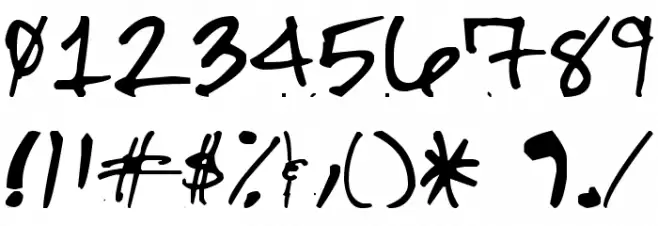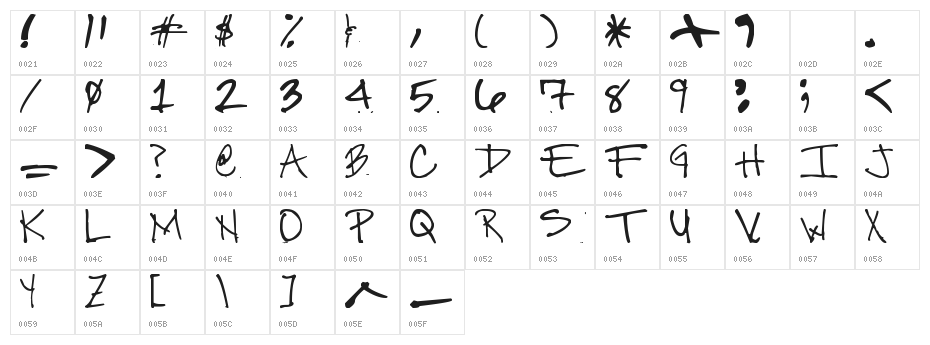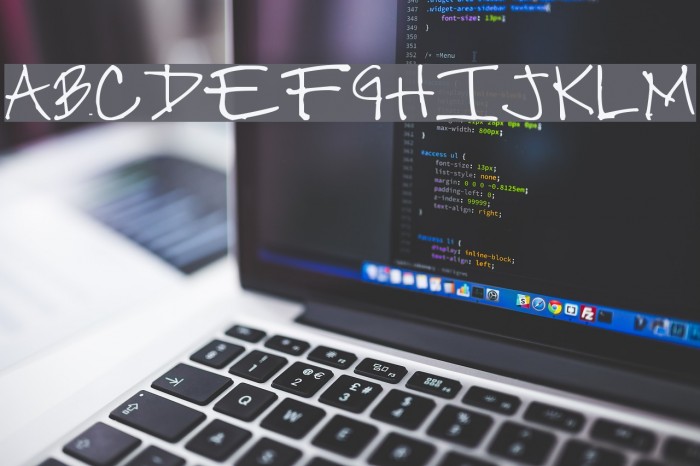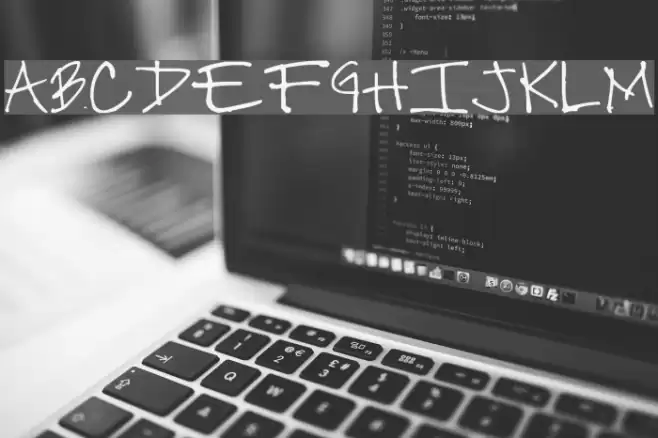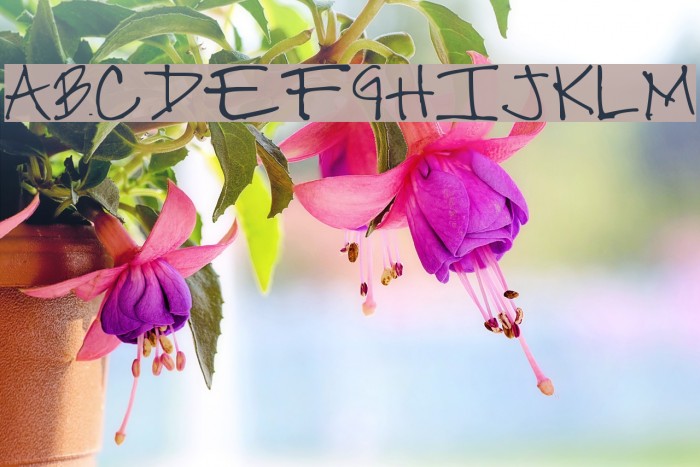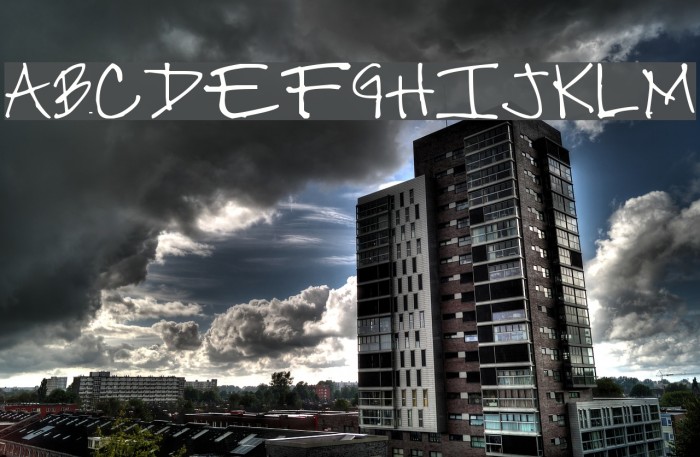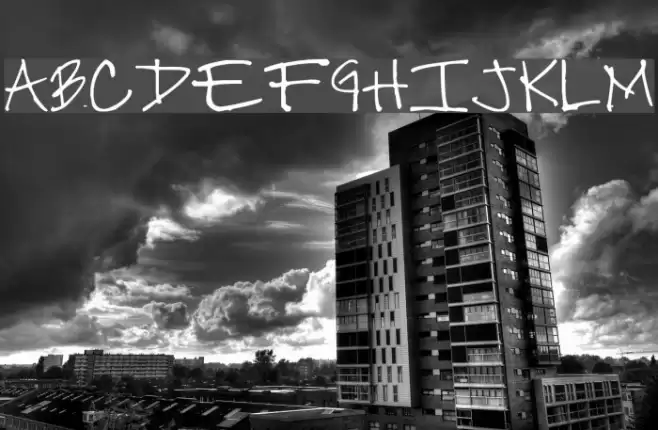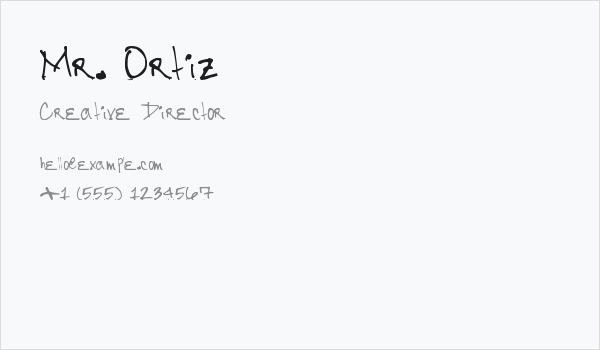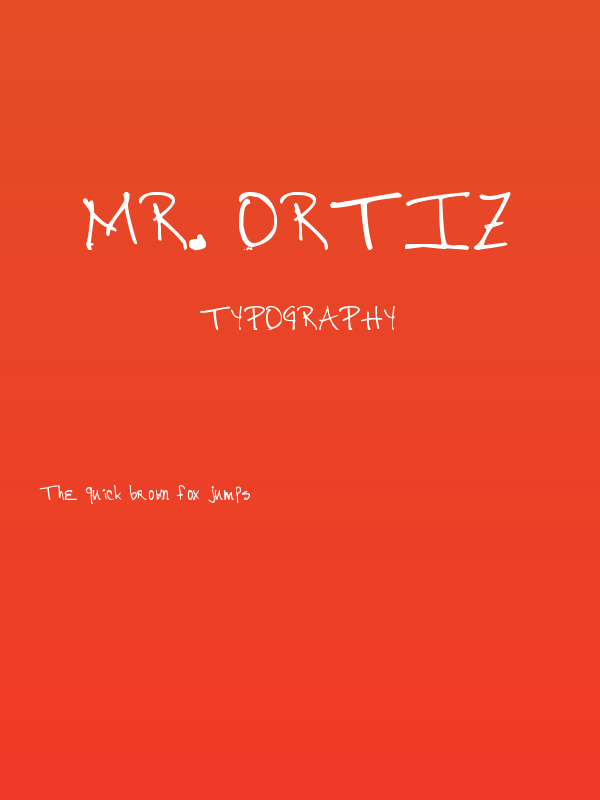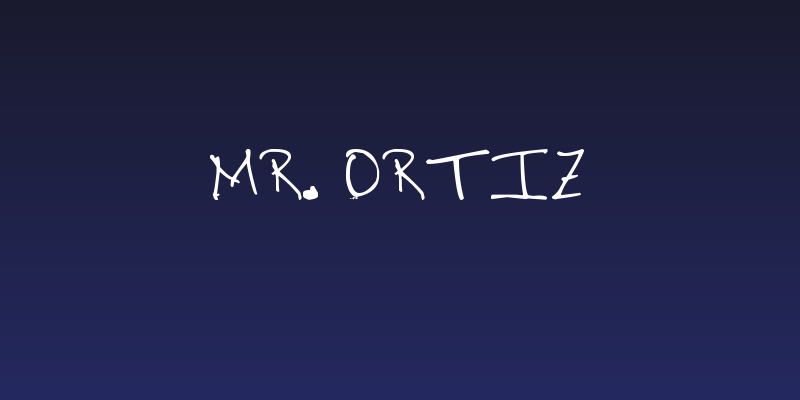
Mr. Ortiz Font
Mr. Ortiz Description
This font exudes a casual, handwritten style with a playful and slightly chaotic appearance. The letters are unevenly sized and spaced, giving it an authentic, hand-drawn feel. The strokes are bold and expressive, with varying thickness that adds to the dynamic and lively character of the font. The uppercase and lowercase letters maintain a consistent style, while the numbers and special characters integrate seamlessly into the overall design. This font is perfect for projects that require a personal touch or a creative, informal vibe.
| Proposed Projects | Ideal for greeting cards, personal branding, creative posters, and informal invitations. |